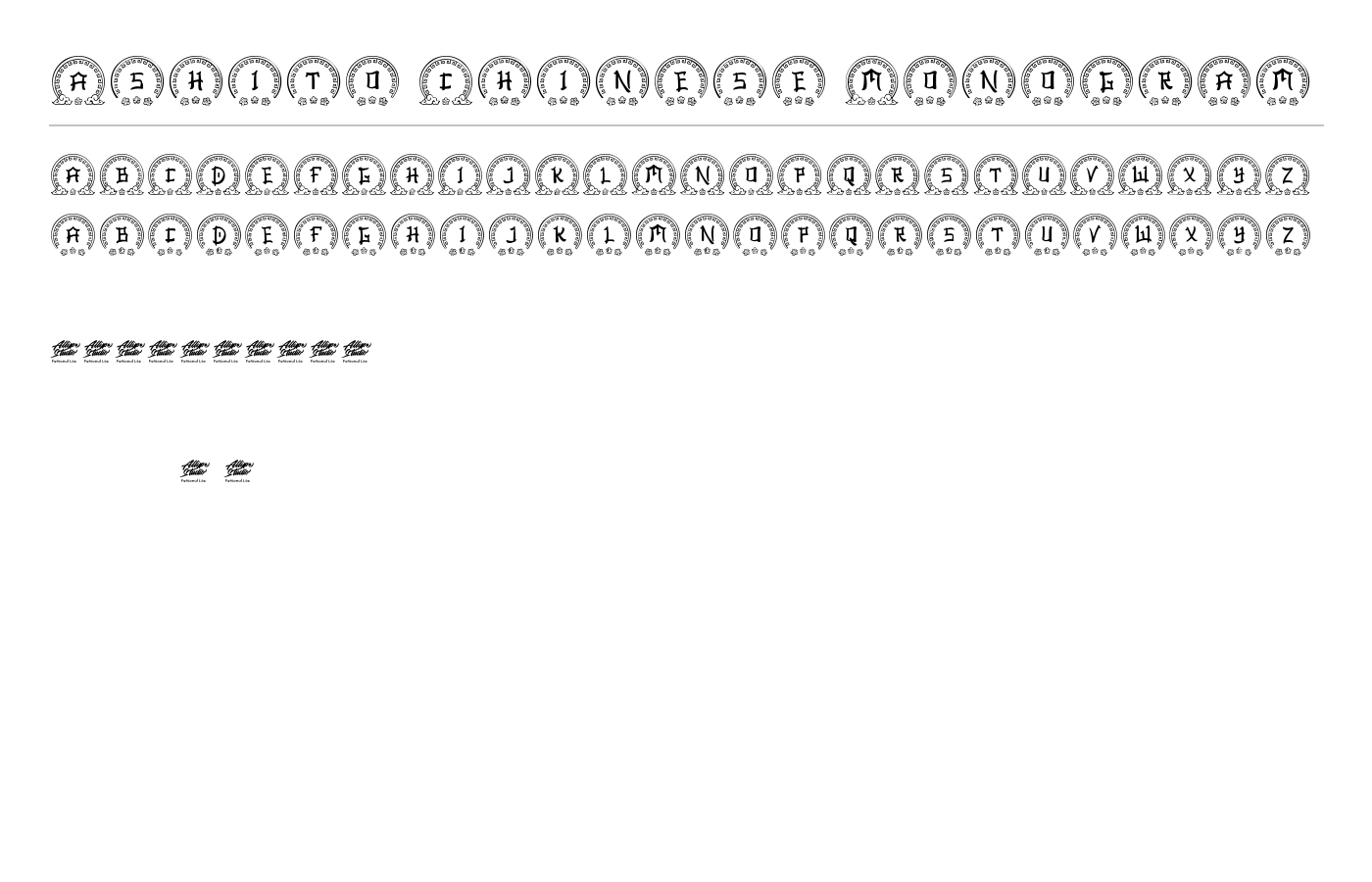
Ashito Chinese Monogram Font features a unique blend of serif and decorative elements with an intricate circular frame that evokes a traditional Asian aesthetic. The uppercase letters are bold and stylized with sharp, geometric serifs, creating a strong and elegant presence perfect for monograms, logos, and branding that seek a luxurious and cultural touch. This font works best in design contexts needing a sophisticated, ornamental flair that stands out in packaging, fashion, and high-end editorial use.
Ashito Chinese Monogram Font
About Ashito Chinese Monogram Font